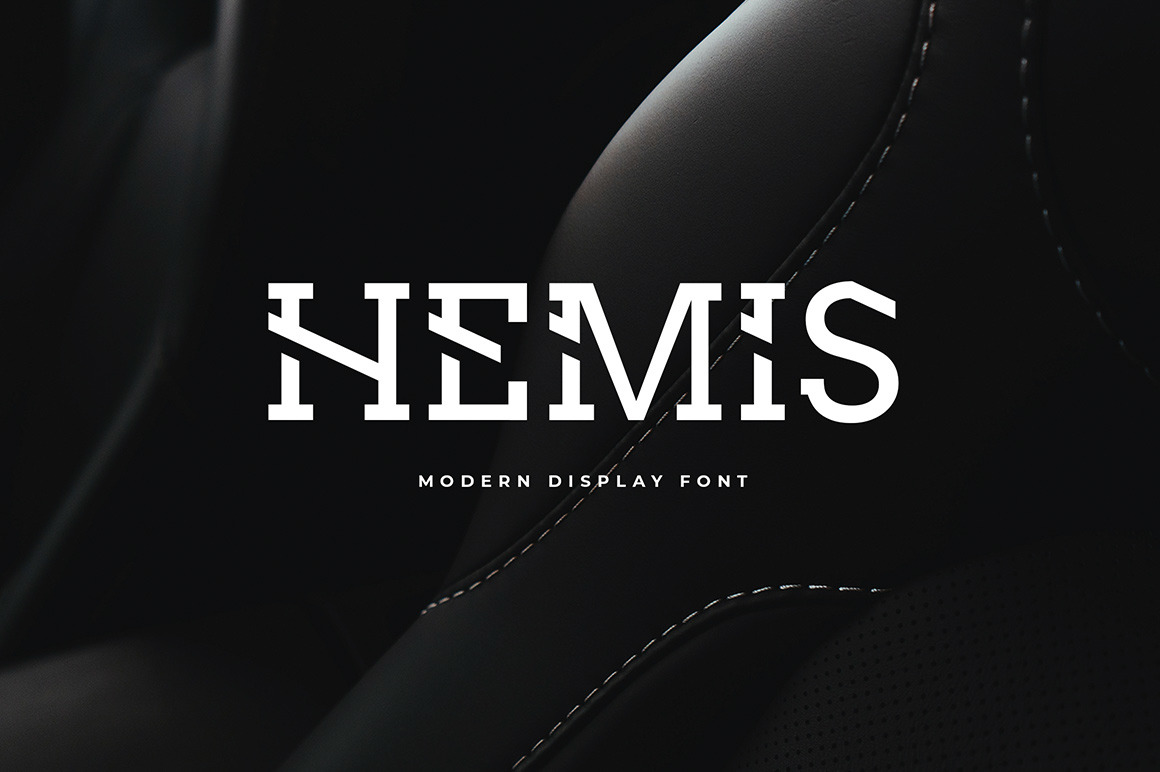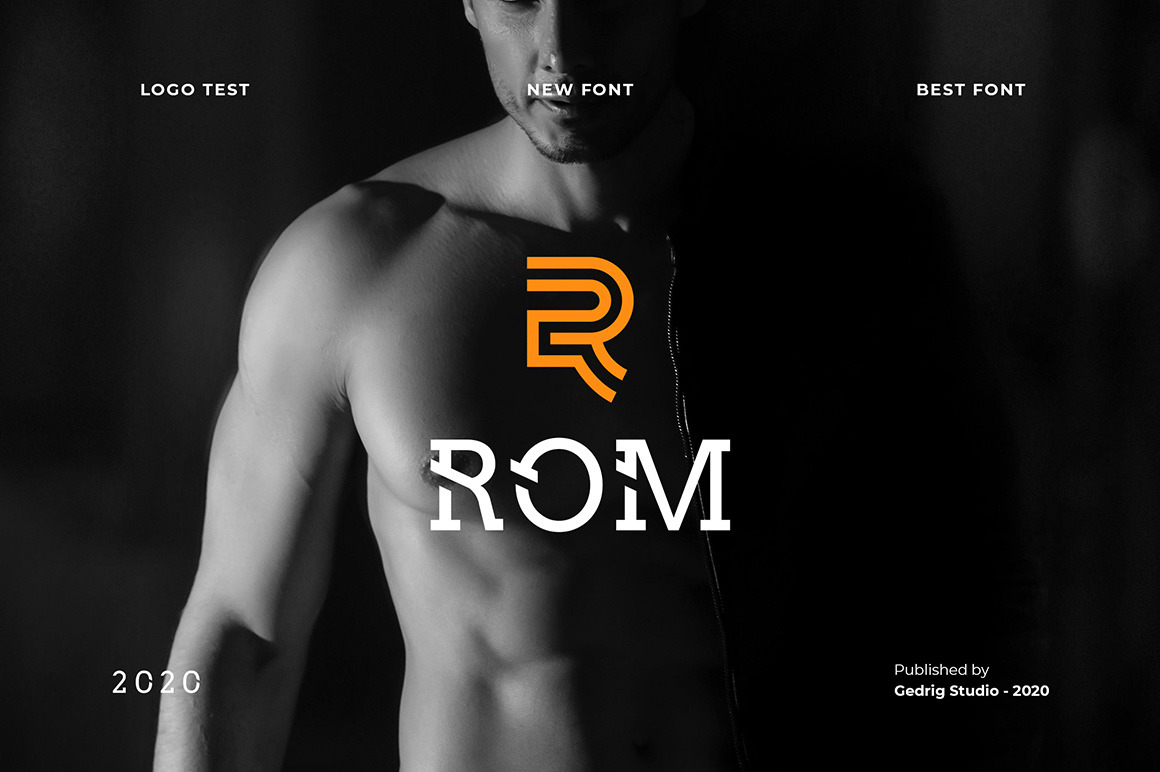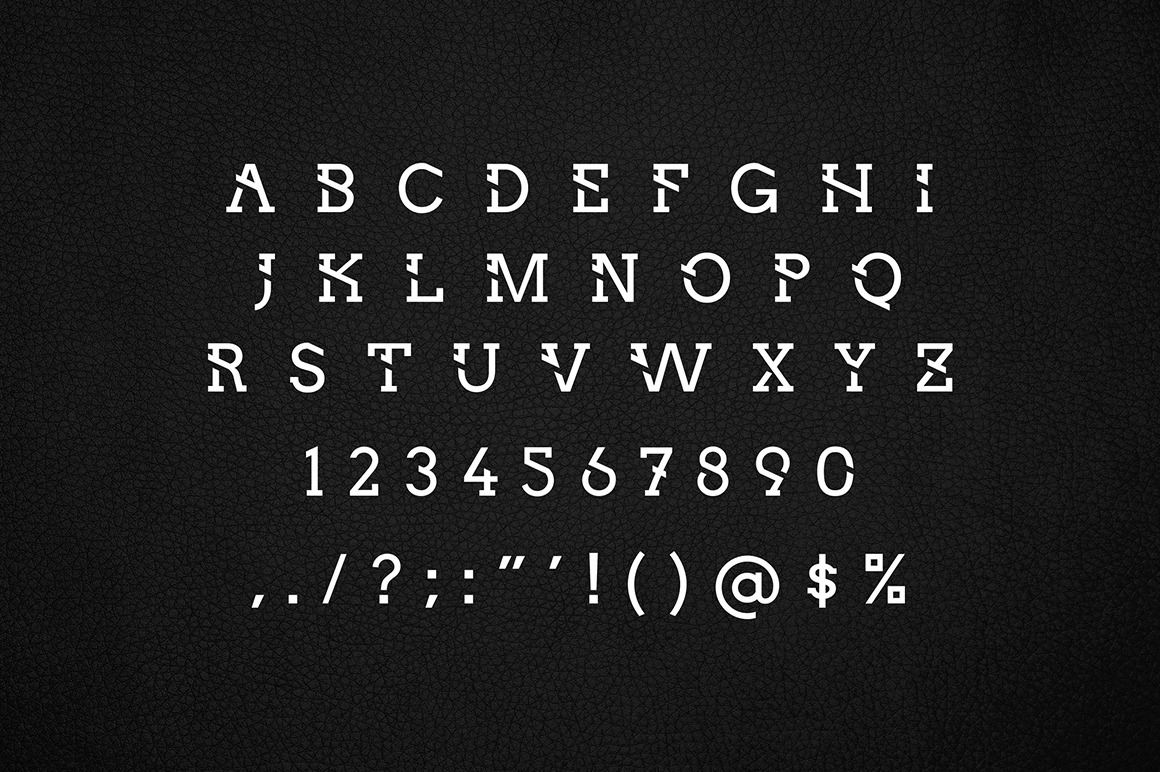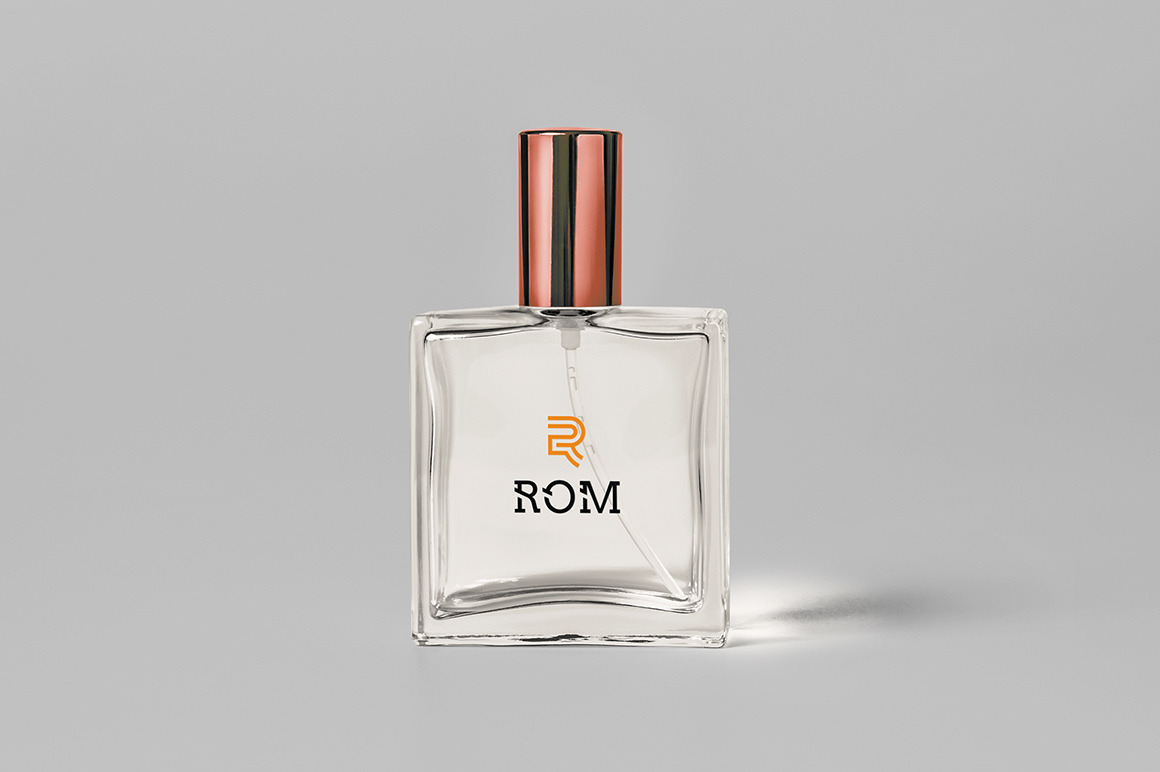
Hemis - Display Font
Hemis is a sporty and dynamic font, suitable for brands with elegant nuances, such as watches, perfumes, bags, and others.
This font is also suitable for Clothing Brands, Product Labels, Logo Types, Packaging, Fashion, and more.
+ Only uppercase
+ Numbering and Punctuation